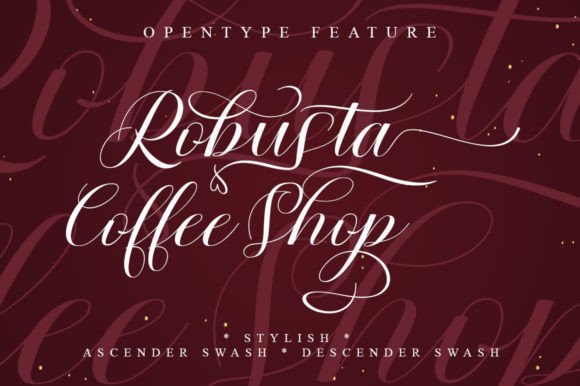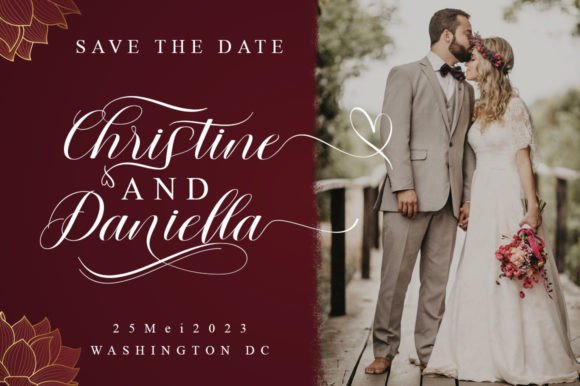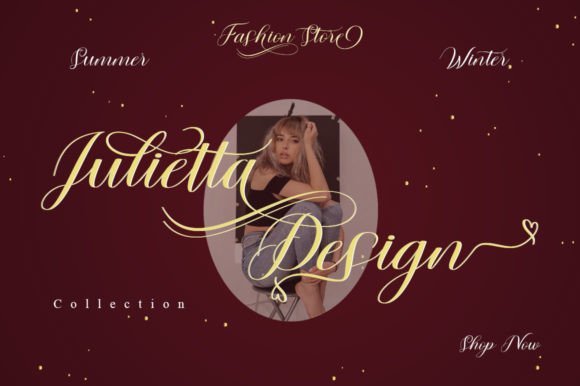
Introduction to Boniface Font
Boniface is a sweet, bouncy, and swirly calligraphy script.
Meanwhile, this script is still maintaining its elegance Boniface is PUA-Encoded, with many swirly extra glyphs to give many options in designing.